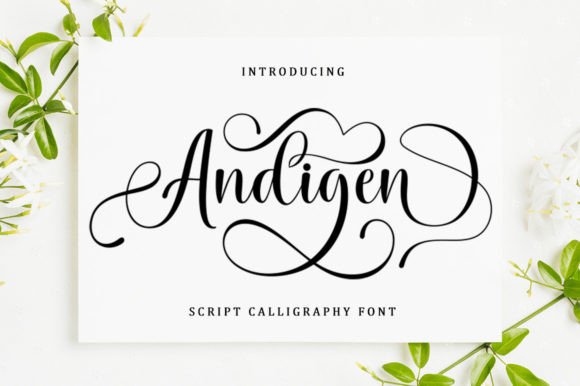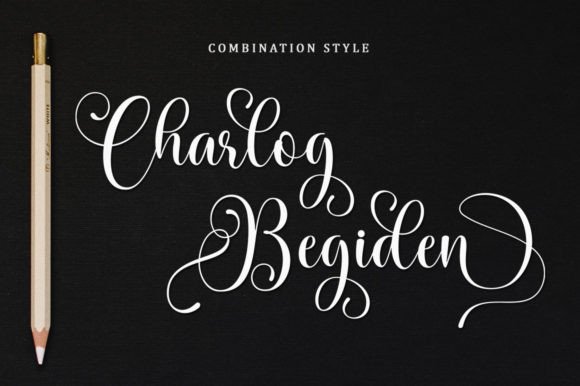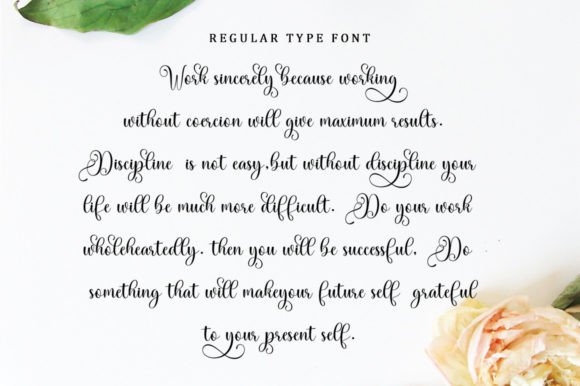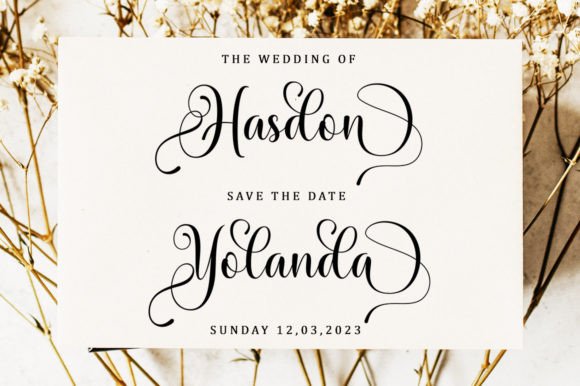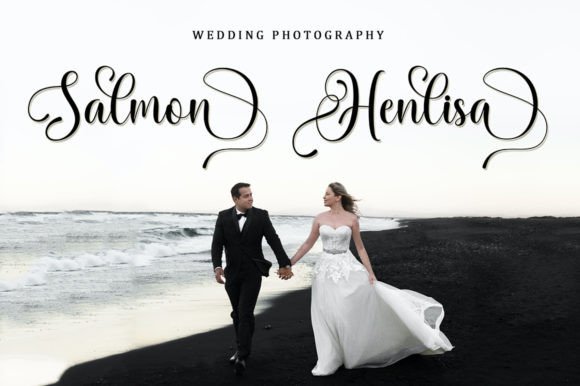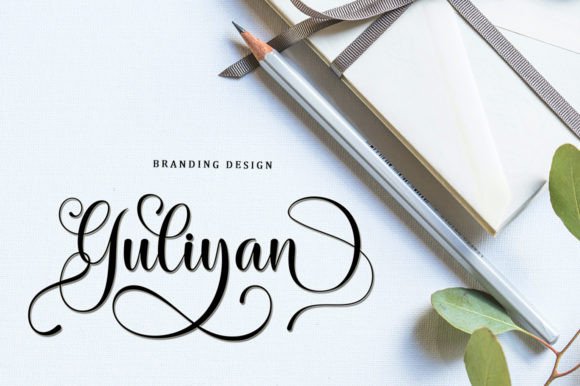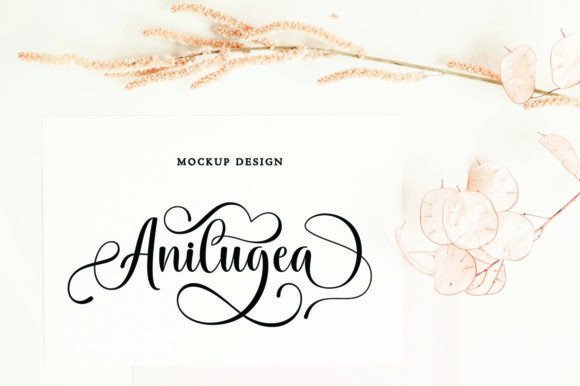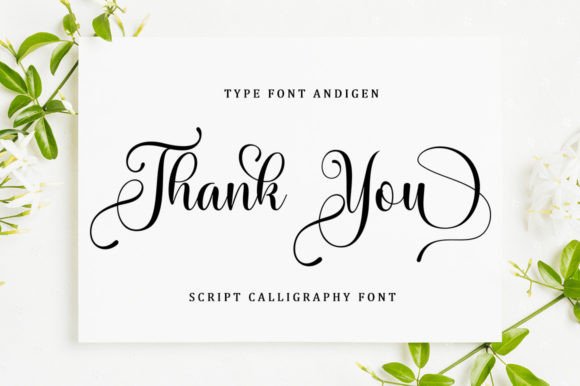
Andigen Font
What Is Andigen Font?
Andigen Font is a flowing handwritten script designed to bring elegance and warmth to any project. Each letter is crafted with graceful curves and smooth strokes, giving it a refined, timeless feel. Because of its classic character, this font is perfect for designs that need sophistication and personality.
You will see how effortlessly Andigen elevates your work with its unique and stylish presence.
Andigen is a versatile font you can use across many creative projects. For example, it’s ideal for wedding invitations and event stationery. The elegant script creates a romantic and luxurious impression that guests will love.
In addition, it works beautifully for logos and branding. Whether you design for boutiques, photographers, or lifestyle brands, Andigen helps you create a memorable, high-end identity.
You can also use it for social media graphics and inspirational quotes. The flowing strokes add a classy touch that makes your content stand out.
When you create packaging, labels, or product tags, Andigen gives everything a handcrafted look that feels premium and authentic.
Moreover, it’s perfect for website headers, certificates, posters, and personal projects. Even minimalist layouts become more interesting with this script.
Why Should You Choose Andigen Font?
There are many reasons to consider Andigen for your next design. First, it’s easy to read, even with its elegant flourishes. Whether you use large headlines or smaller captions, every letter stays clear and balanced.
Also, Andigen pairs nicely with clean serif or sans-serif fonts. This helps you build cohesive and modern layouts effortlessly.
Designers appreciate that it looks polished right out of the box, saving time while delivering professional results.
Andigen Font brings elegance and authenticity to every project. For example, when you want your designs to feel refined and personal, this font makes it simple.
Even basic layouts become more engaging with Andigen’s flowing handwritten style. Whether you create branding, invitations, or social posts, your work will stand out.
Using a premium handwritten font also shows your commitment to quality and detail. This builds trust with your audience and makes your designs more impactful.
Andigen Font is more than just a typeface—it’s a creative tool that helps you share ideas with clarity and beauty. From logos and invitations to packaging and quotes, this font adapts easily and leaves a lasting impression.